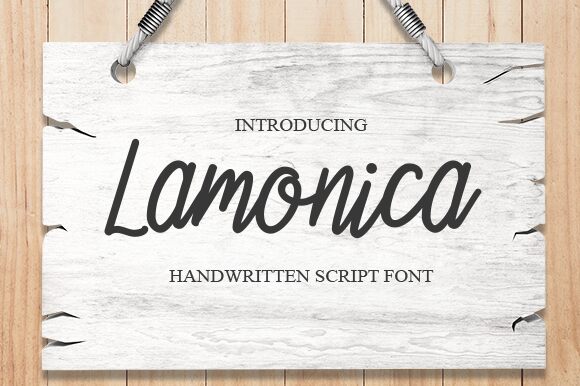
Lamoncia
Introducing Lamoncia, the semi-light and condensed font designed by Aldi Raya Pradipta. Its casual handwritten style adds a personal touch to any project, making it suitable for a wide range of applications. Use it for greeting cards, social media graphics, logos, and even product packaging. The condensed width of this font makes it perfect for designs with limited space without compromising on readability. Bring your projects to life with Lamoncia's unique character and style that is sure to captivate your audience. Try it today and elevate your designs to the next level!